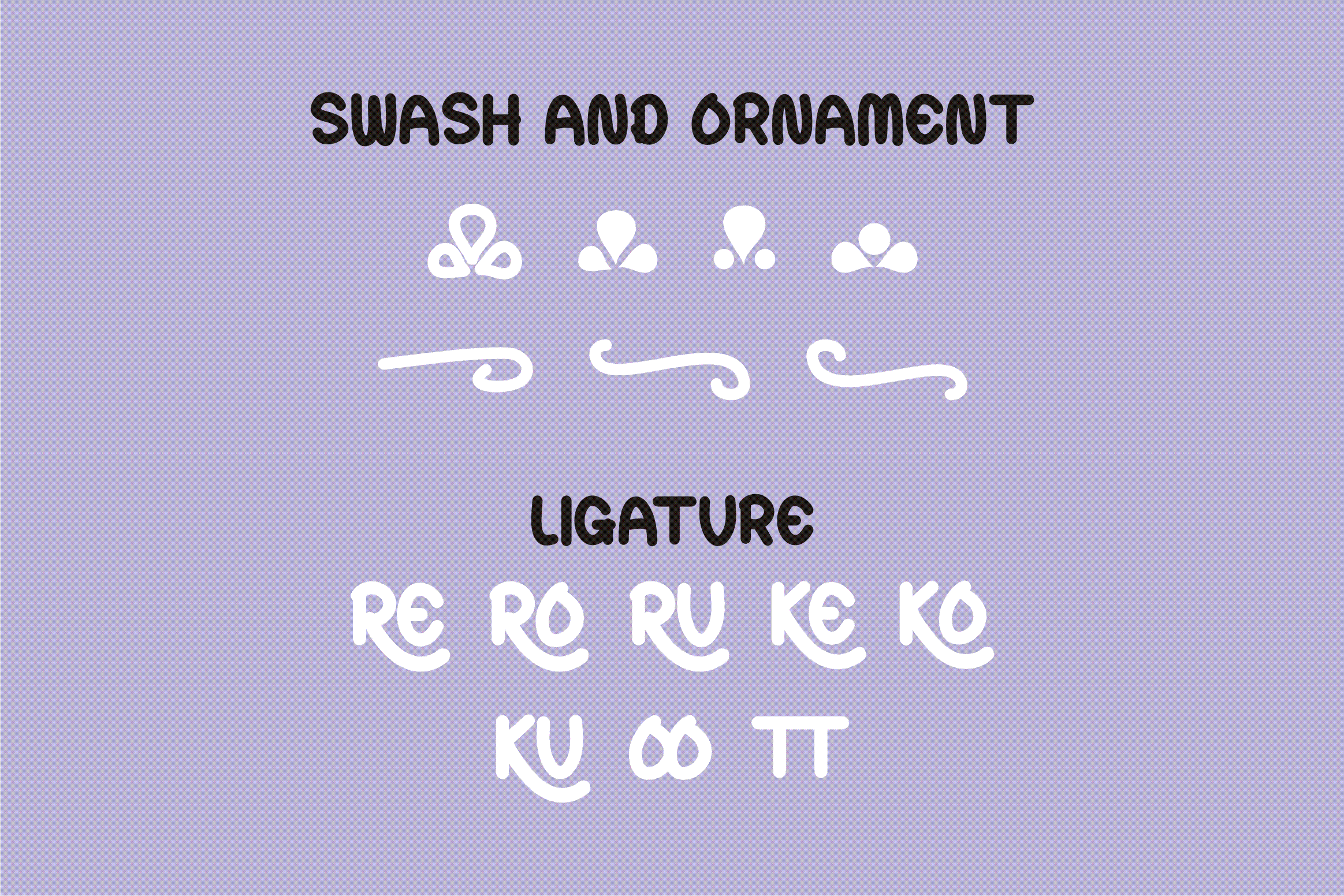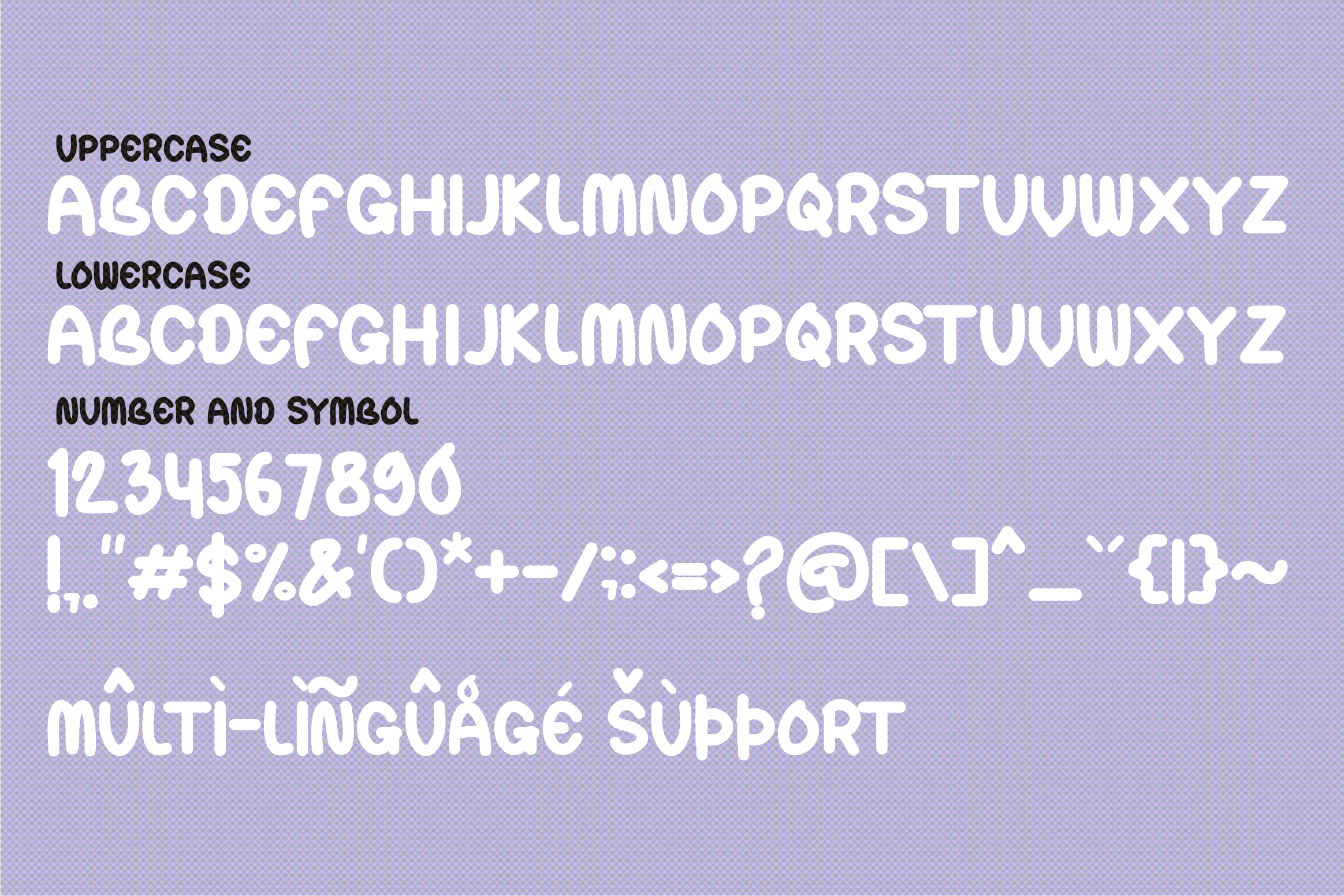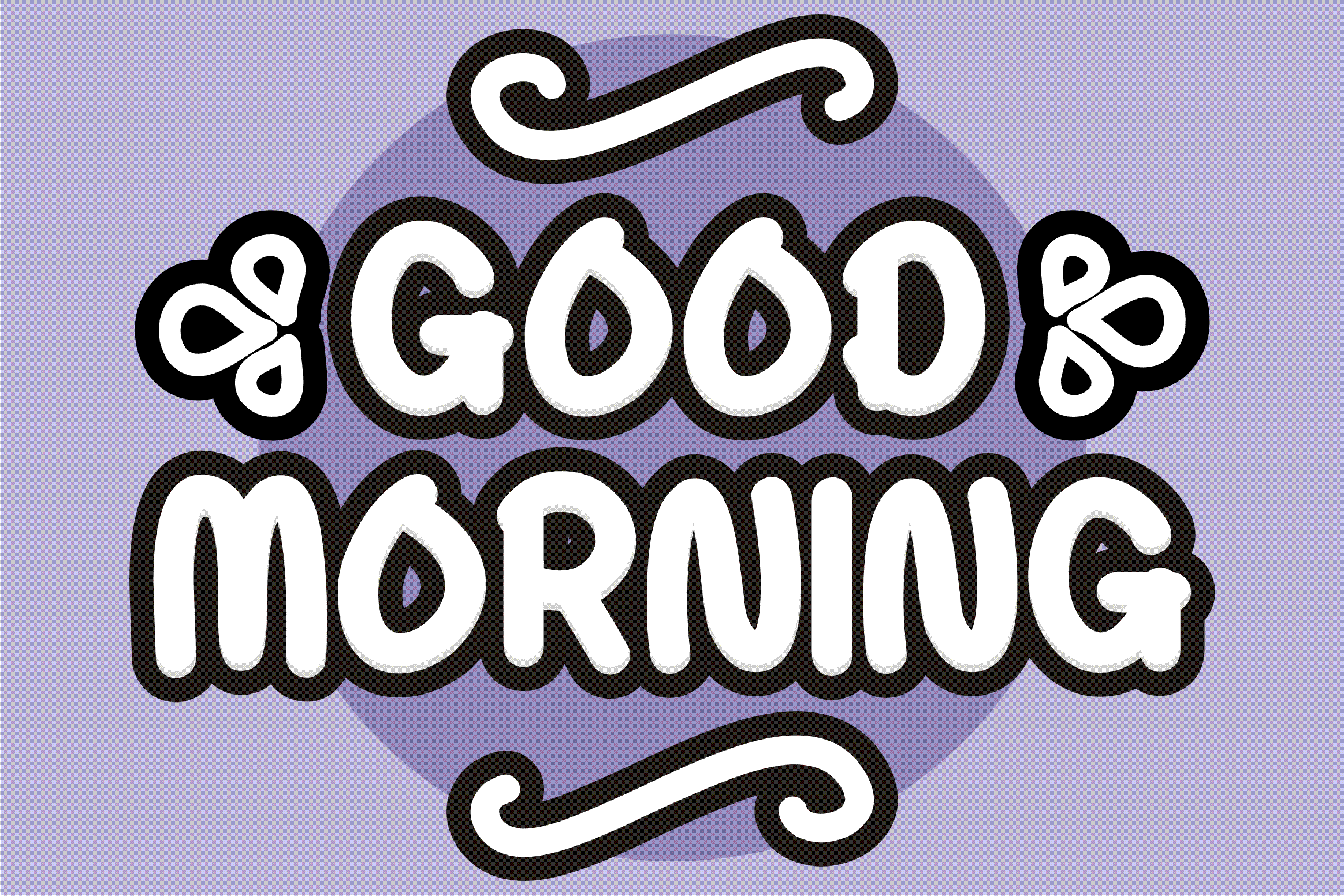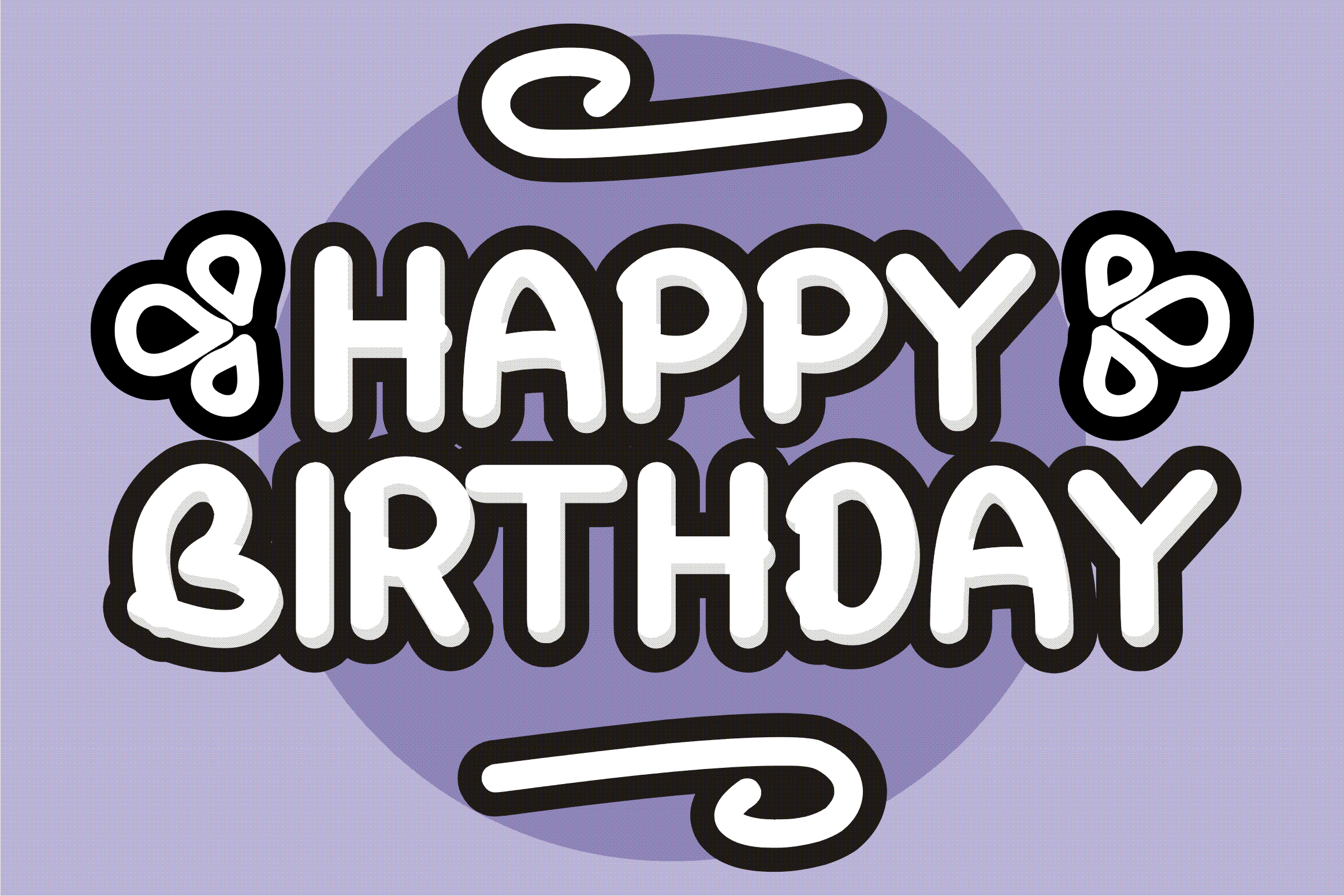
Rokiko Font
Rokiko Display Font
This is a cool, friendly and adaptable display font. Whether you are using it for cartoon-related designs, children games, quotes, titles, brand names, book covers, posters, or just any creation that requires a touch of joy, this font is a great choice.